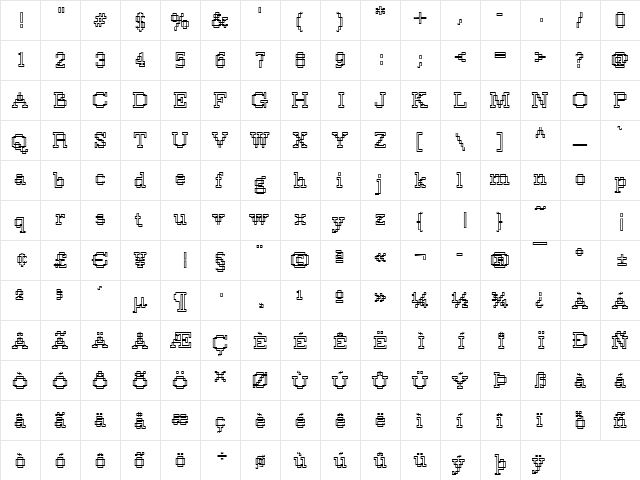
Rough33 Bold
Design Context for Rough33 Typeface
Rough33 trades polish for personality, using distressed and eroded forms to bring grit and attitude to creative work.
Suited to punk-influenced zines, underground music branding, streetwear, and raw, anti-corporate design.